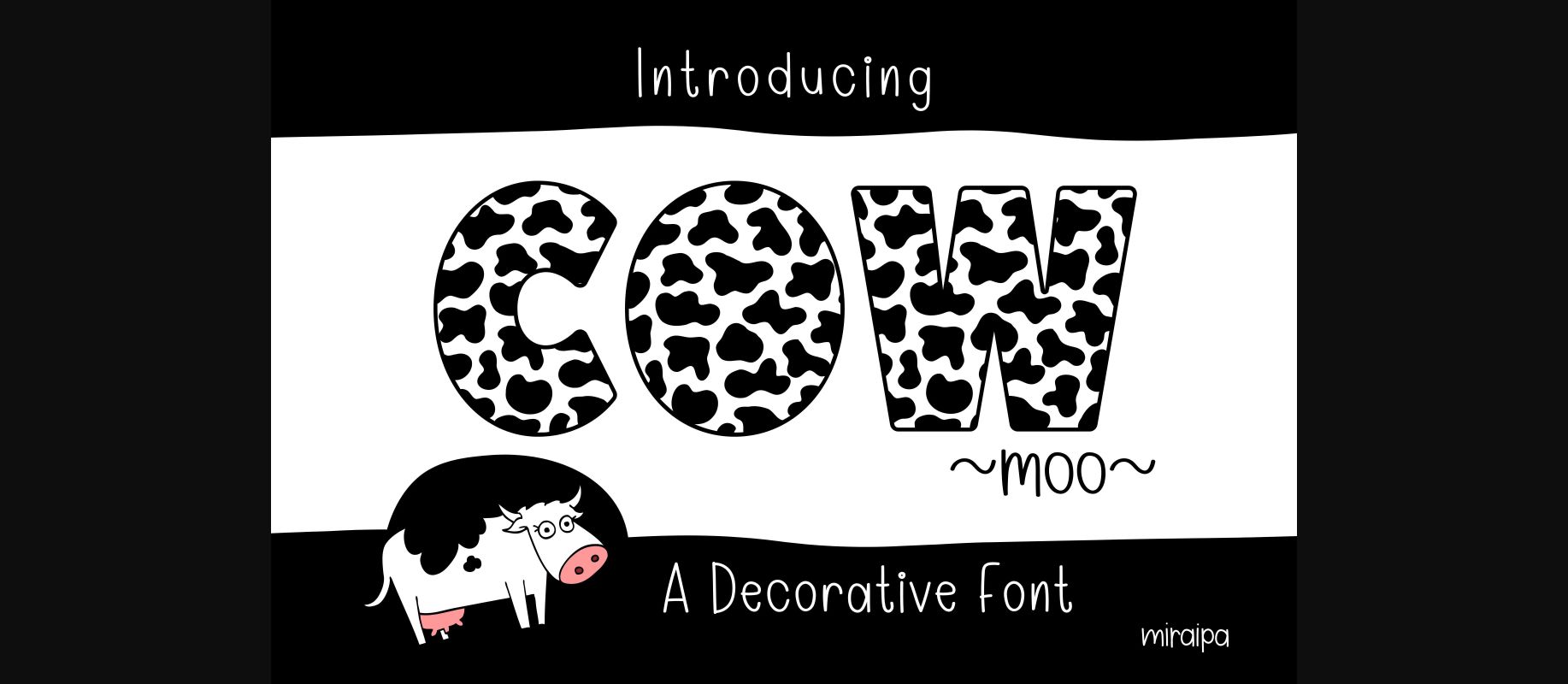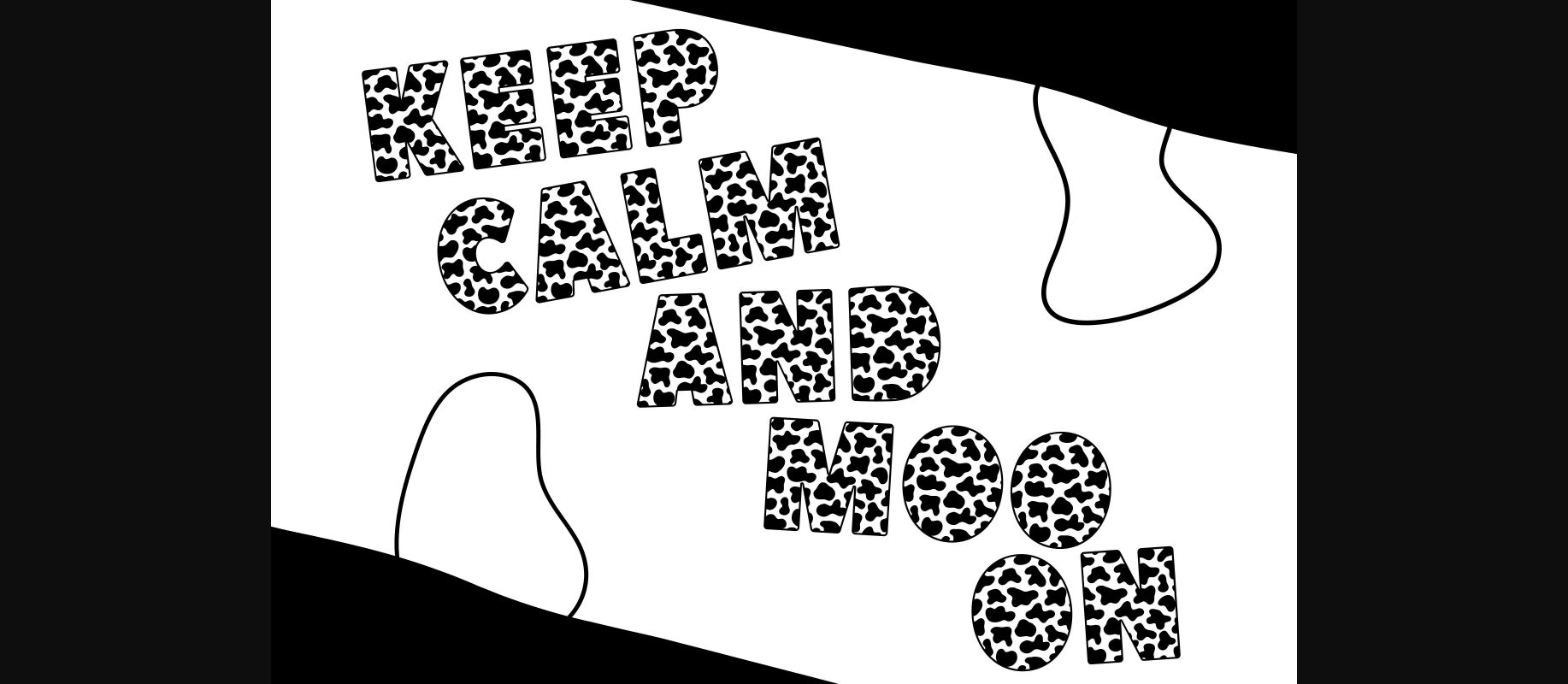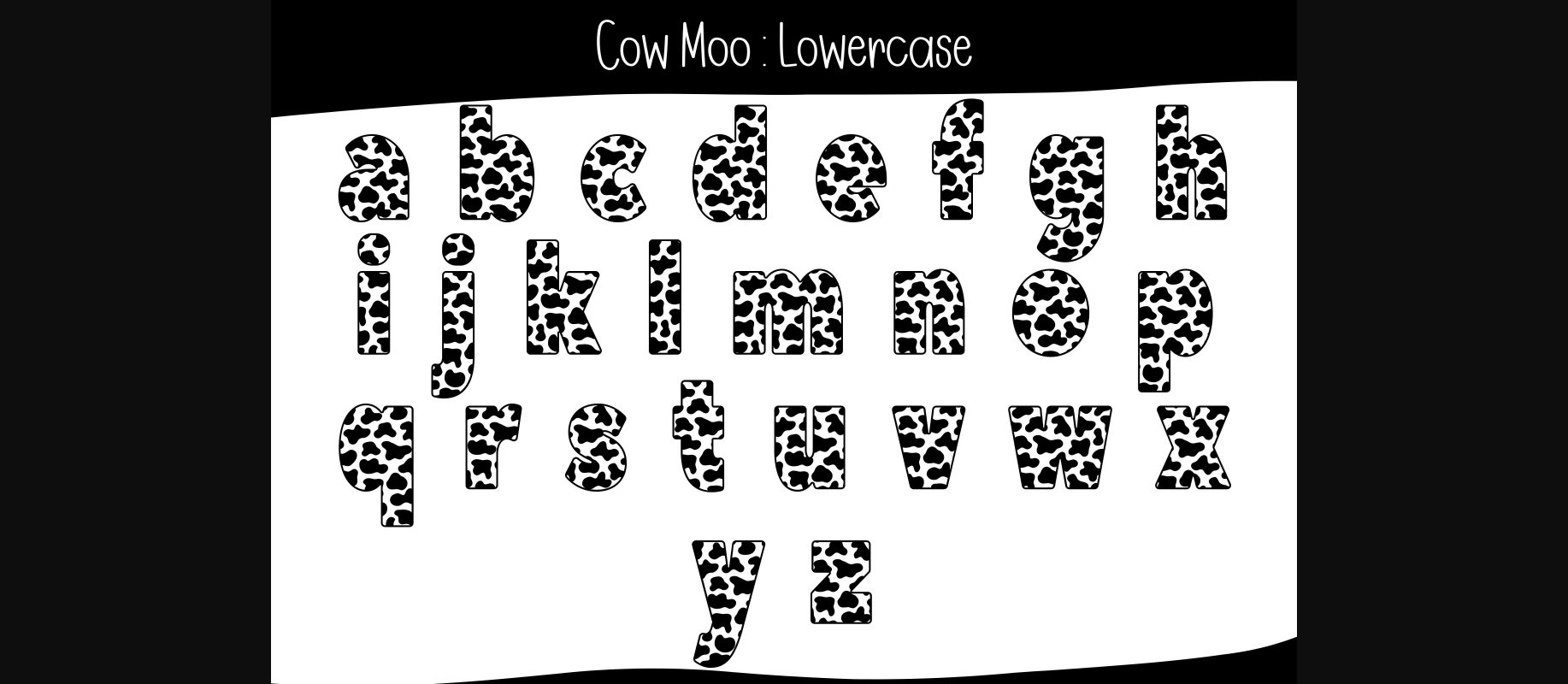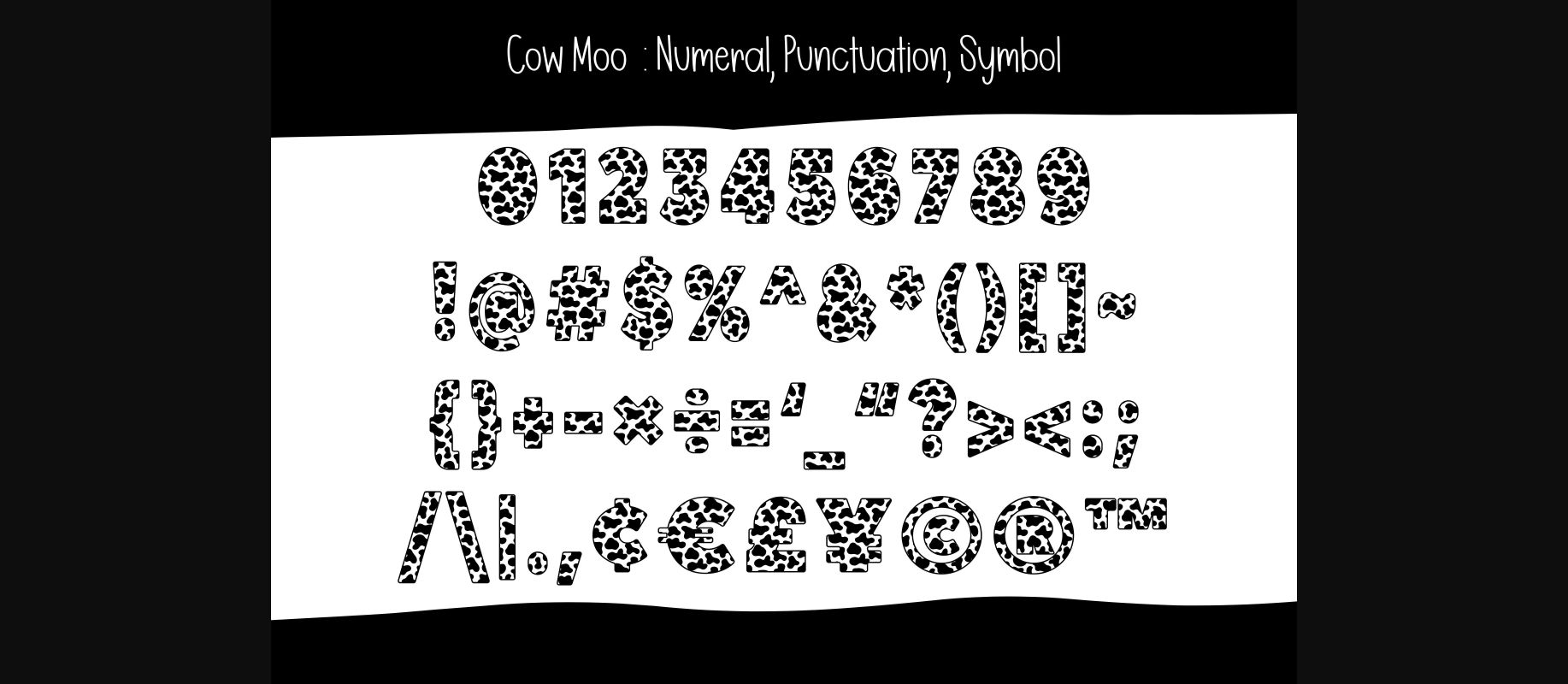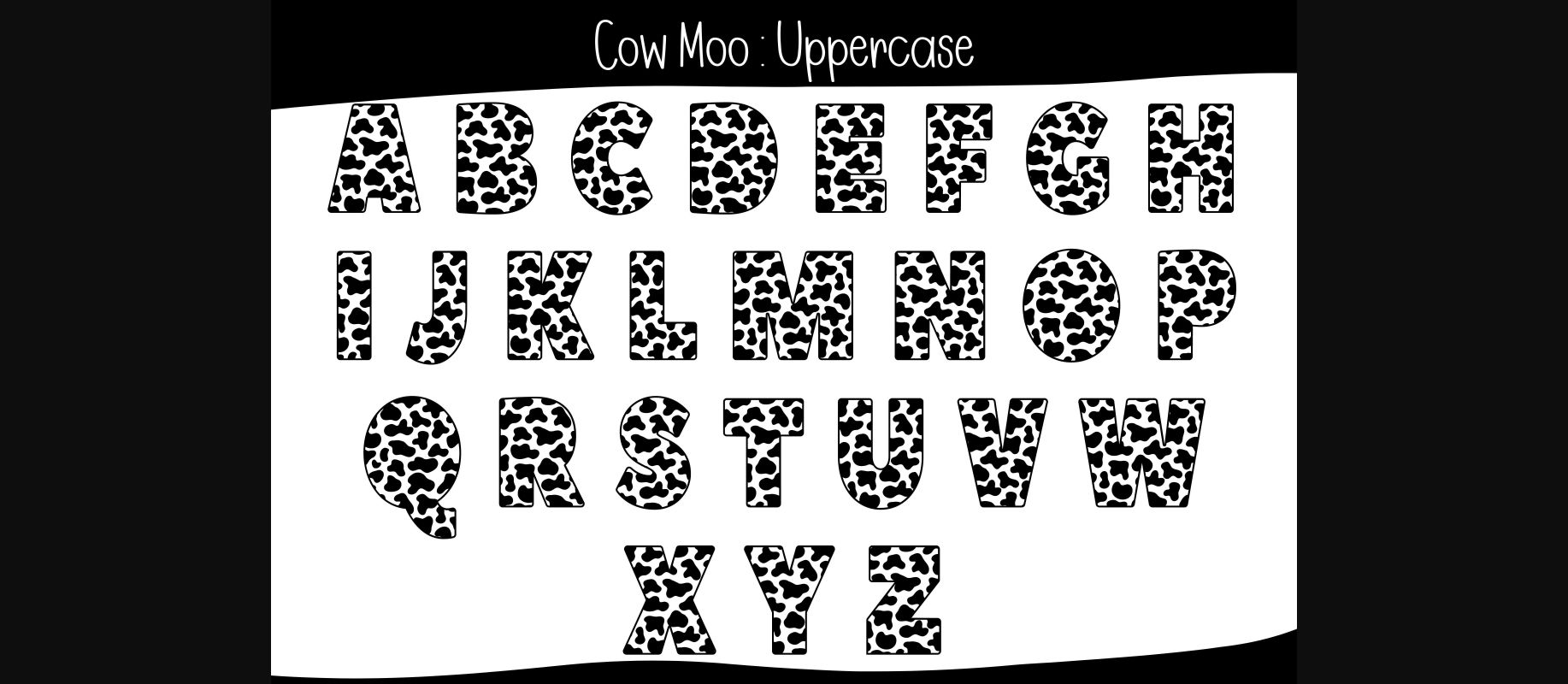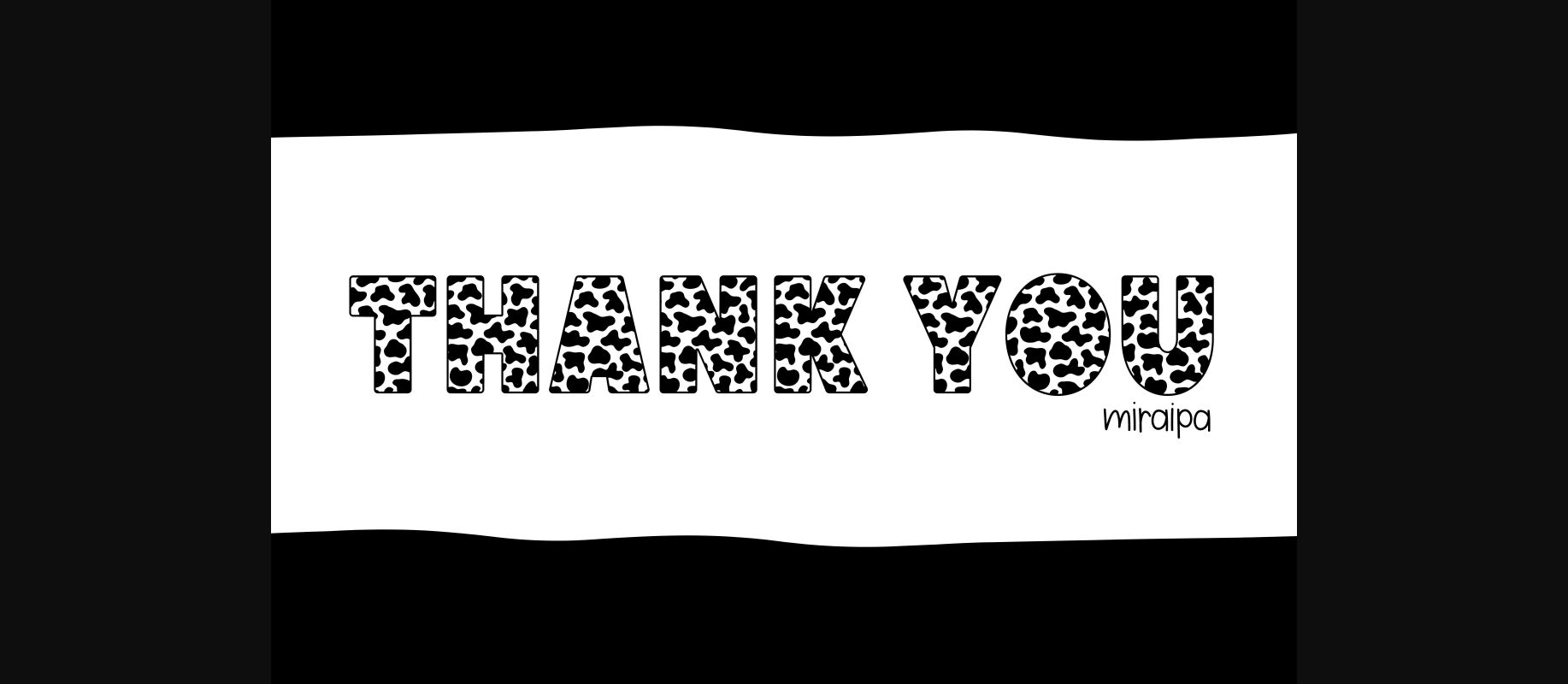
Cow Moo Font
About Cow Moo Font
Cow Moo is a decorative font designed in a cute and lovely cow print style. It would be awesome for your animal-related projects, child-related items, family, mom projects, back-to-school, party decorations, party invitations, posters, blogs, clothing, greeting cards, social media posts, or anything that needs a friendly touch. Add it now to your fonts library, and it will bring any of your DIY projects to life.